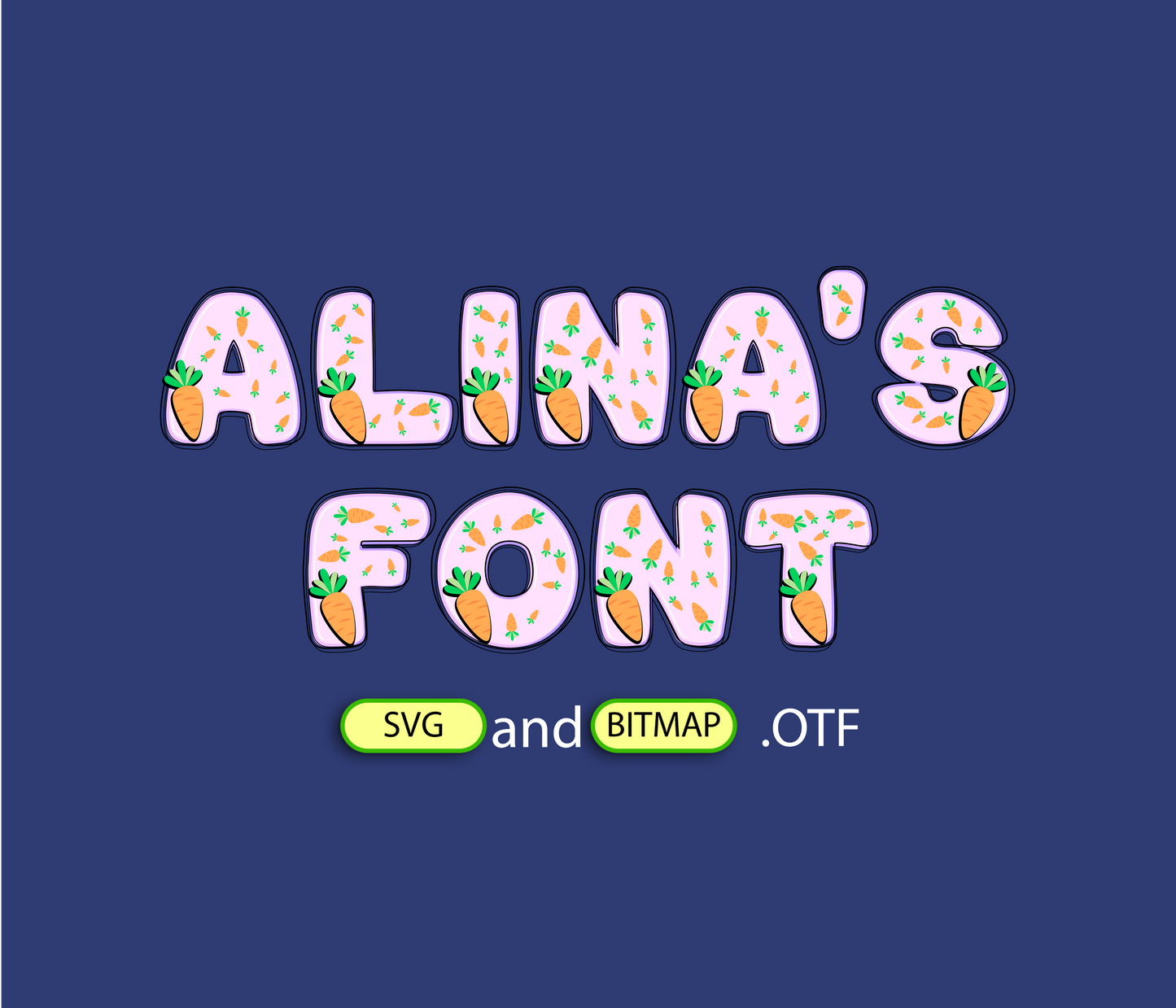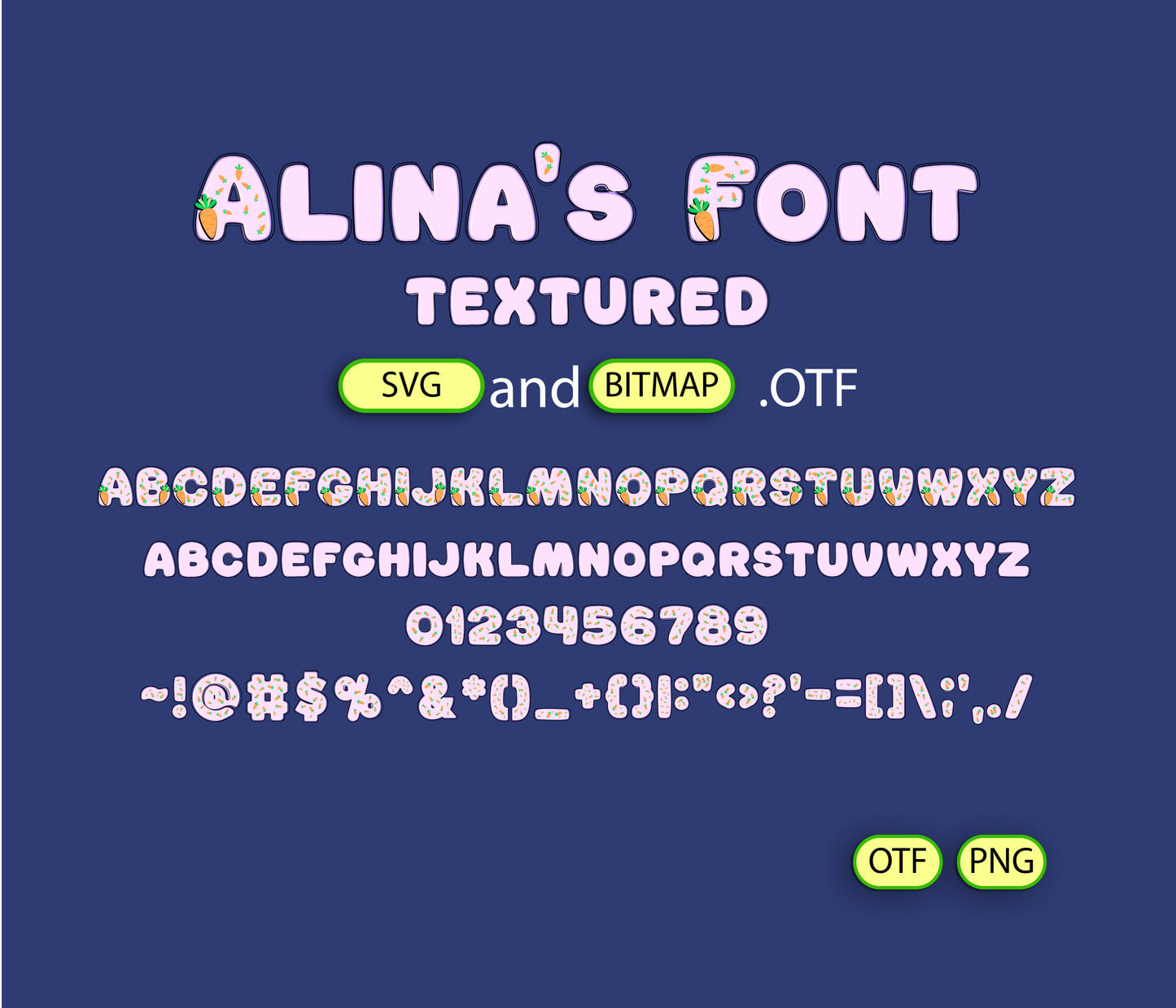
Colorful Easter Typeface Festive Pattern Font
Celebrate the joy and renewal of Easter with our exclusive Easter font, perfectly crafted to capture the essence of this cherished season. Inspired by the themes of rebirth, hope, and communal joy, this font is a harmonious blend of traditional Easter symbols and modern design. Whether you're designing invitations for an Easter brunch, creating engaging educational content, or crafting heartfelt messages and designs to share on social media, the Easter font adds a touch of spring and warmth to your projects.
Optimized for use in Canva, this font ensures that anyone can integrate it seamlessly into their designs, making it accessible to a wide audience without the need for complex design software. Furthermore, it comes with a no-texture version, guaranteeing compatibility across all software and making it a versatile choice for both digital and print mediums. This adaptability ensures that the Easter font can enhance your designs with its clean and unassuming style, regardless of the platform or medium.
With its comprehensive character set and user-friendly design, the Easter font is accessible to all, inviting users to add a touch of Easter magic to their creations effortlessly. Celebrate the essence of Easter with our Easter font, and let your designs bloom with the freshness, joy, and hope that define this beloved season.
Easter Font